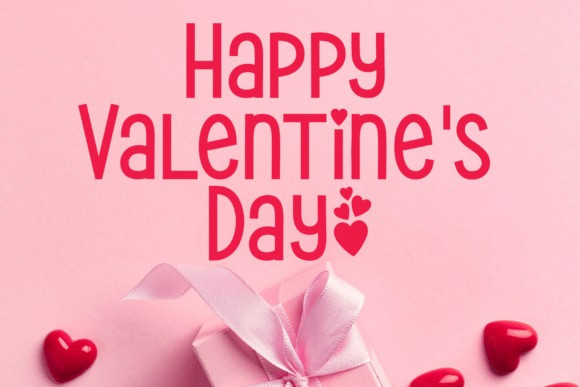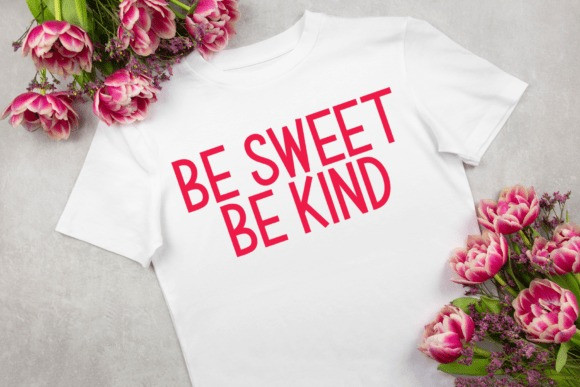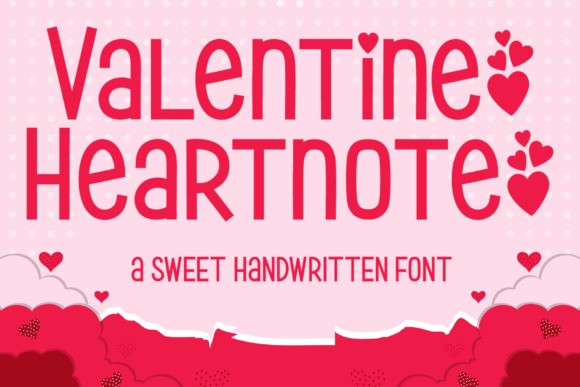
Valentine Heartnote Font
Valentine Heartnote Font features bold, expressive strokes combined with charming heart accents on the letters i and j, creating a playful yet romantic. Designed to capture warmth and affection, this font is perfect for Valentine’s Day projects, love letters, greeting cards, and romantic quotes. Its bold handwritten style ensures strong readability while still maintaining a soft, personal feel. Ideal for social media posts, digital invitations, stickers, mugs, apparel, crafting projects, and heartfelt designs that need a touch of love and sweetness.